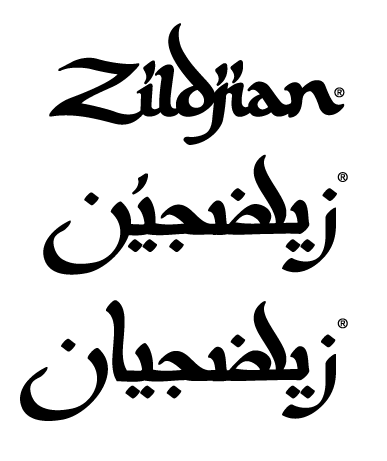
Arabic Zildjian Font
Syawal Khidmat Font. Zildjan is a brand of cymbals on the drums. The Zildjian Company stands in.
Being the official language of over 20 countries Arabic has about 300 million speakers in the world. This is a perfect font when you want the type to be the focus of the design. This is most probably not a font.